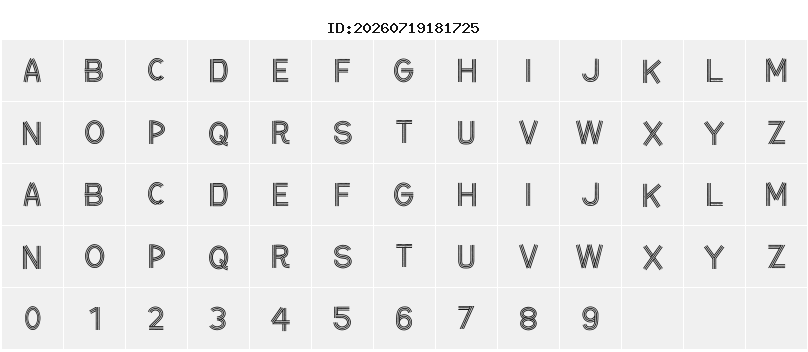
• Font Name: CF Ceinture Flechee
• Designer: Steve Cloutier
• Manufacturer: CloutierFontes
• Description: CF Ceinture Flechee Regular is a font by CloutierFontes, designed by Steve Cloutier in 2013.
CF Ceinture Flechee.ttf is a modern, elegant sans-serif font designed for ultimate readability and visual harmony. Perfect for branding, headlines, web design, and print materials.